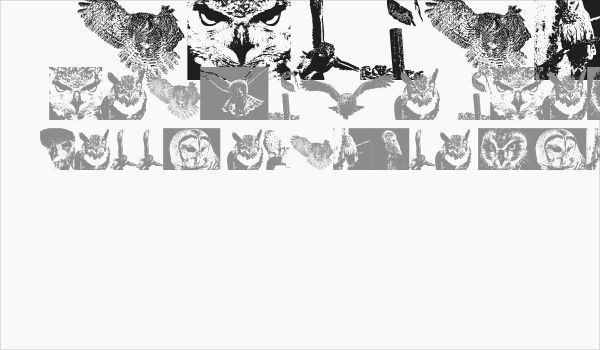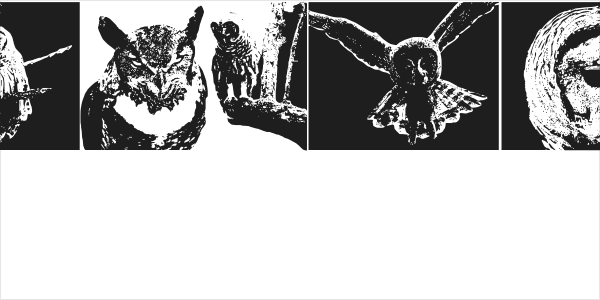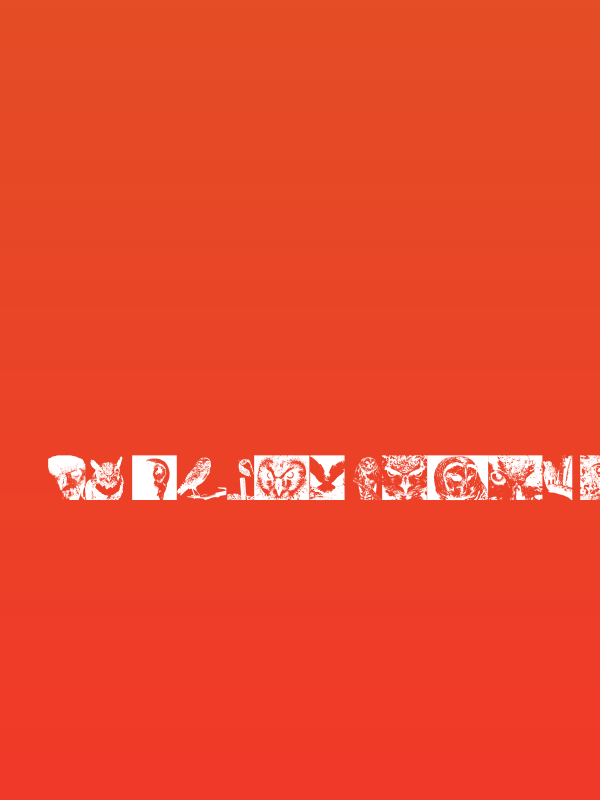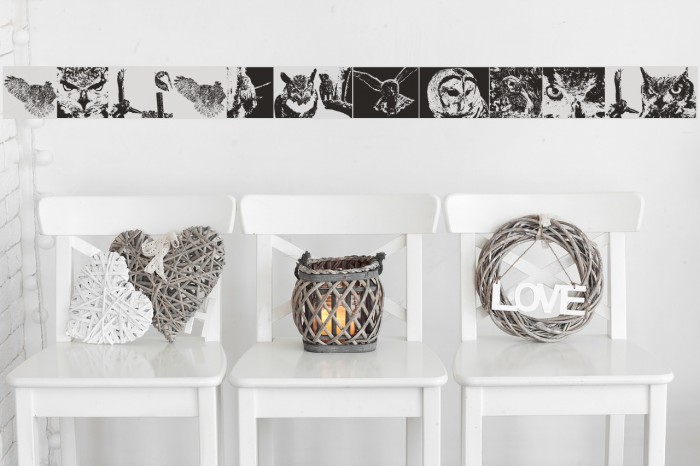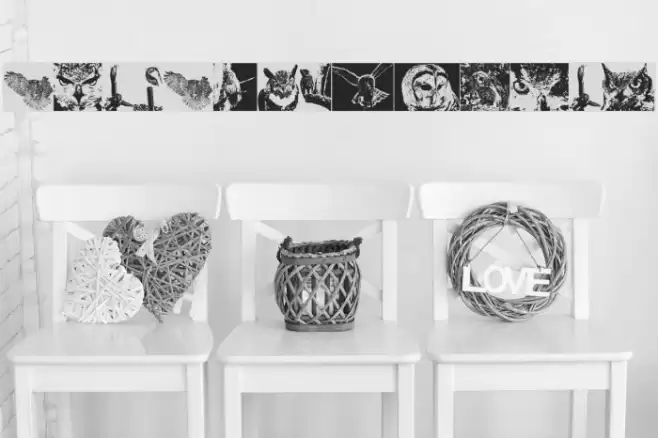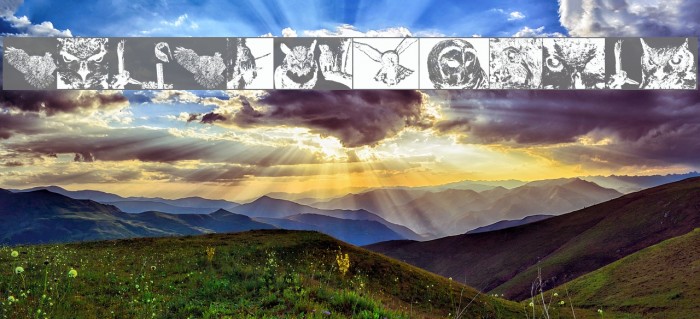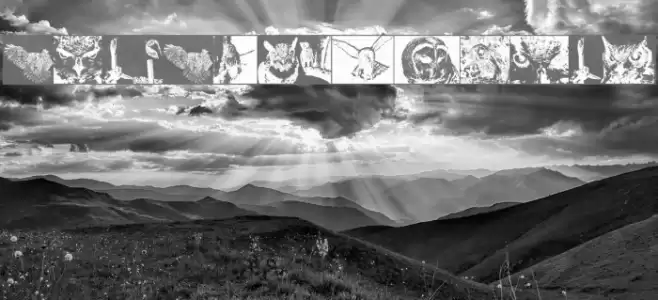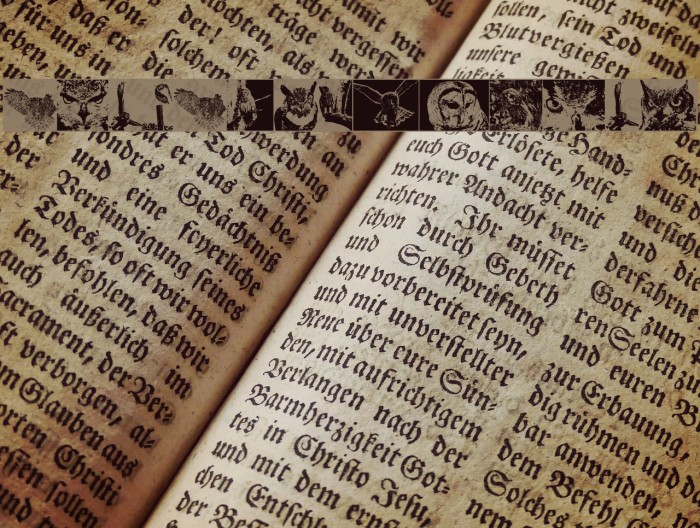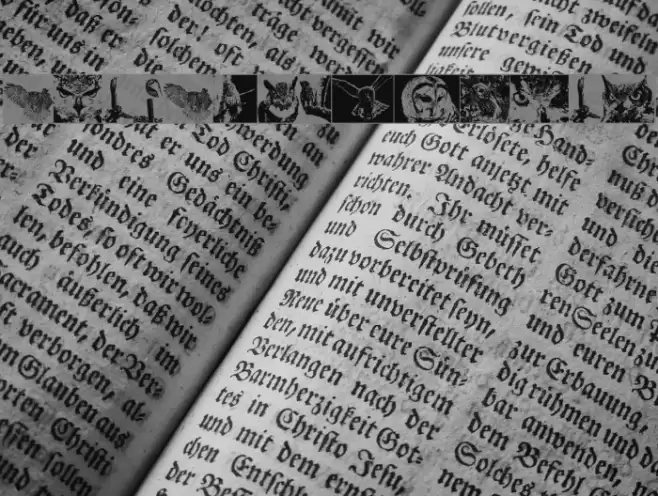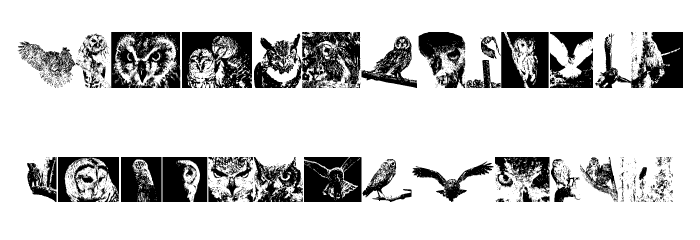
AParliamentofOwls2 Font
AParliamentofOwls2 Description
A decorative display font featuring detailed black-and-white illustrations of various owls and owl-related imagery for each character, with high-contrast, intricate linework and a unique pictorial style.
| Overall Style | Decorative, Artistic, Nature-inspired |
| Use Case | Logos, Headlines, Posters, Themed graphics |
| Proposed Projects | Nature-themed posters, educational materials, wildlife branding, children's books, creative invitations. |